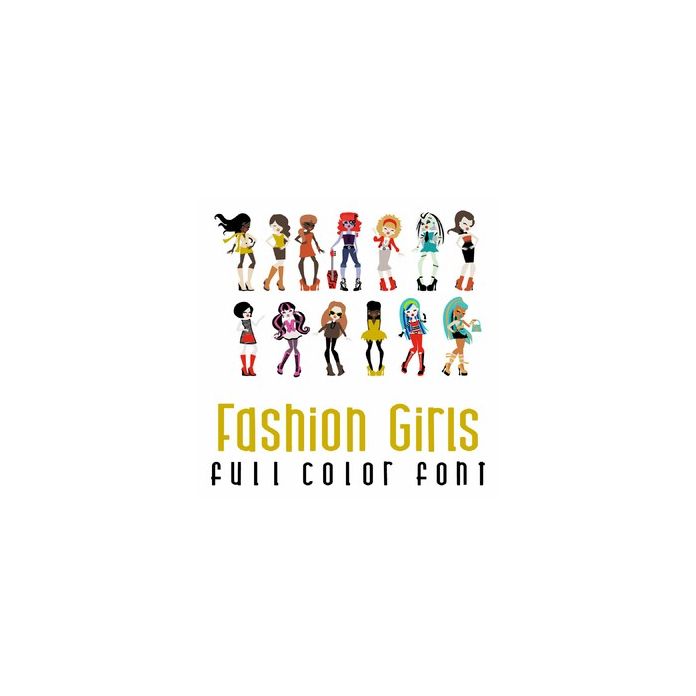
This adorable full color doodlebat font features fun fashionable icons. Perfect for cards, crafts, gifts, decor, scrap book pages, planner stickers and more!